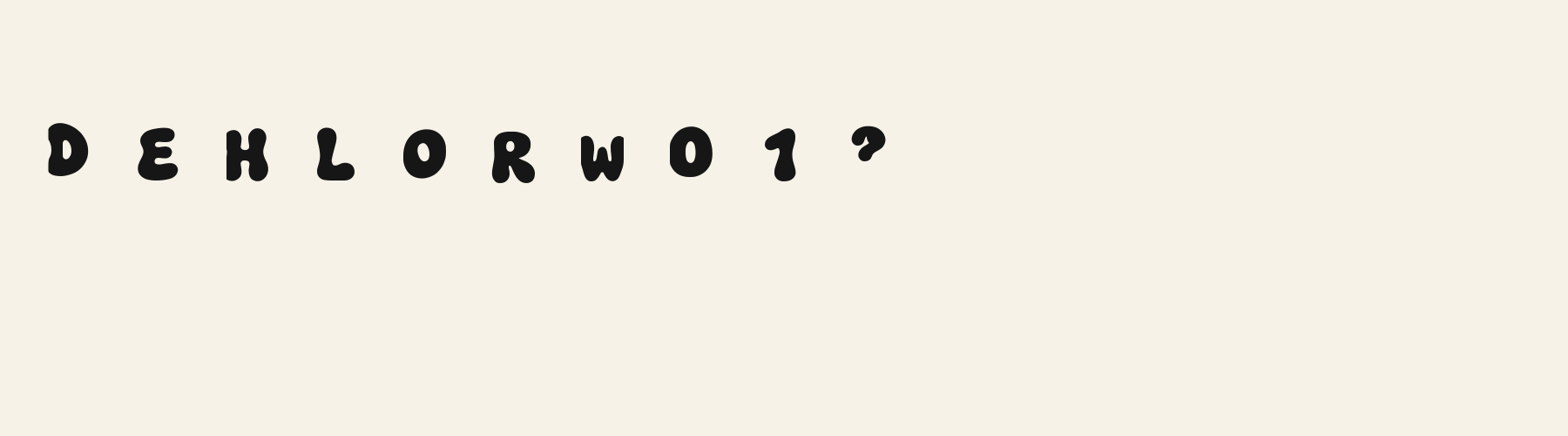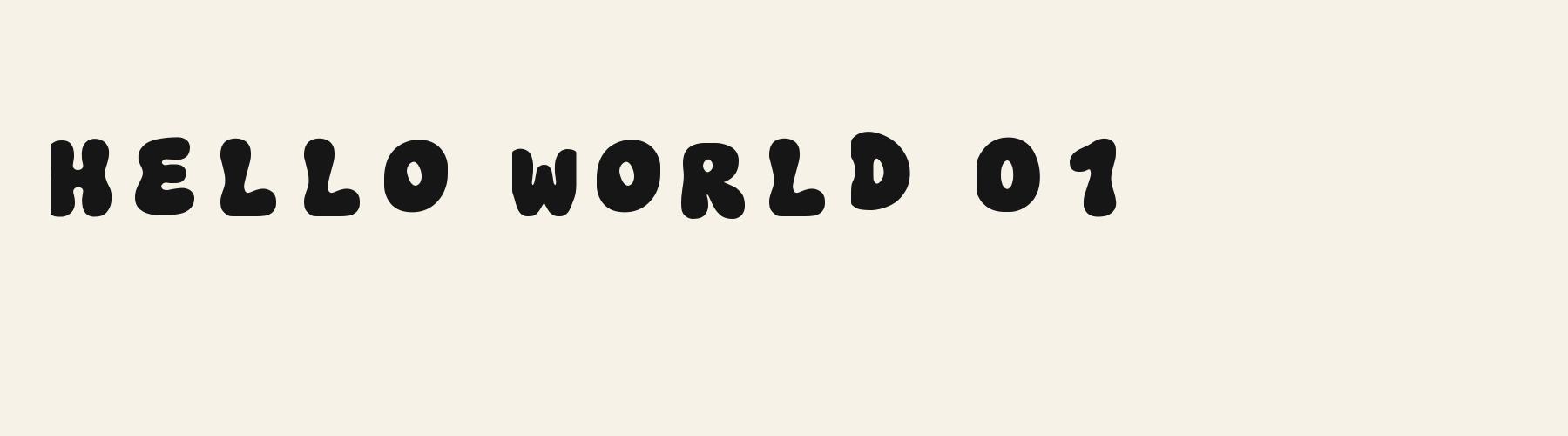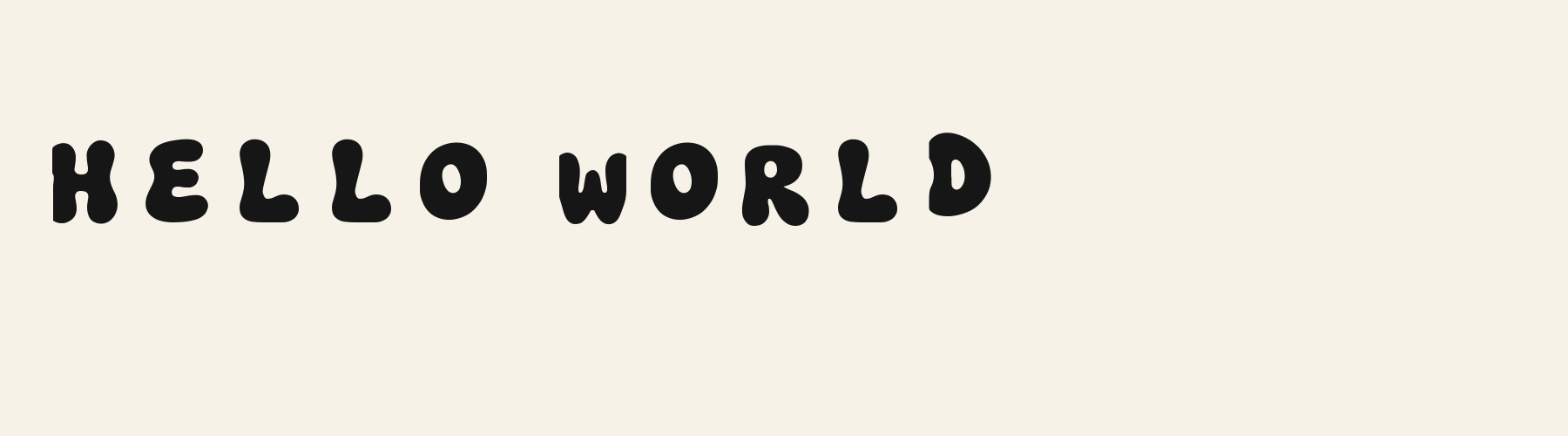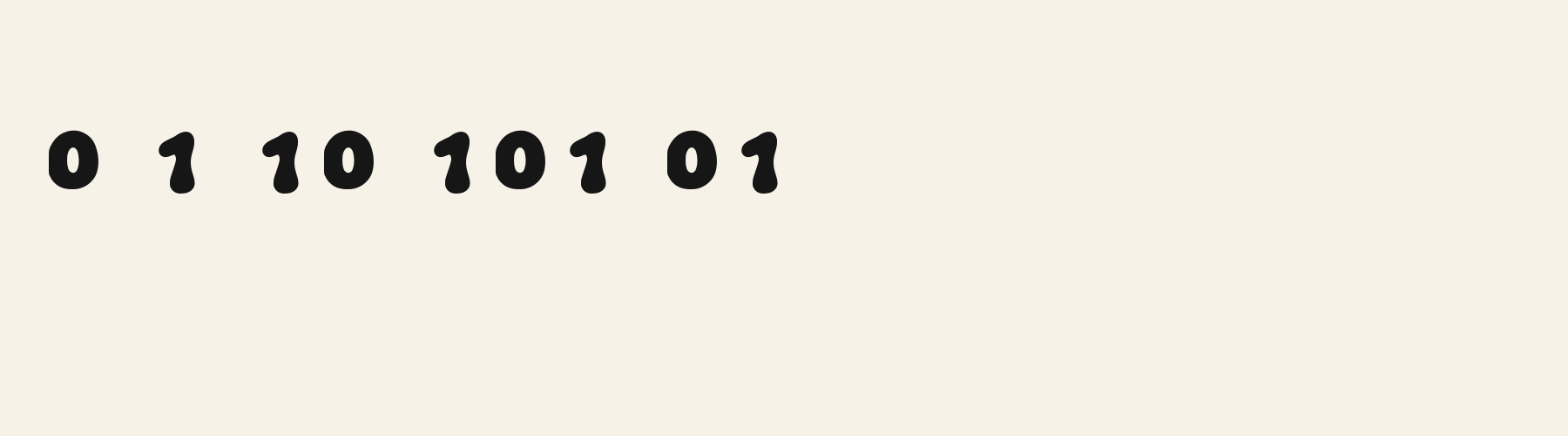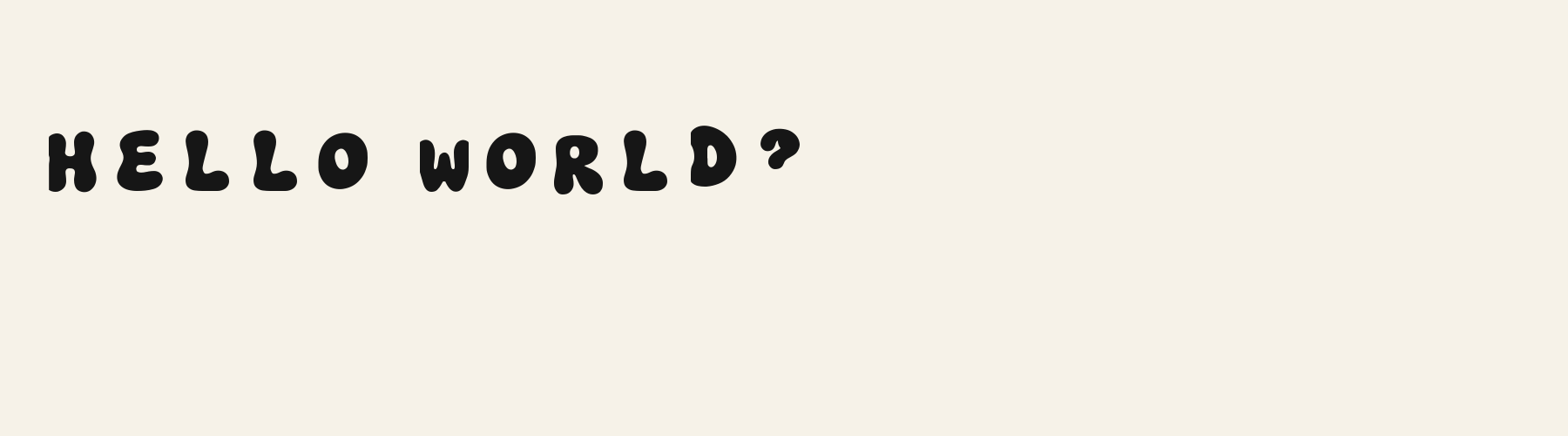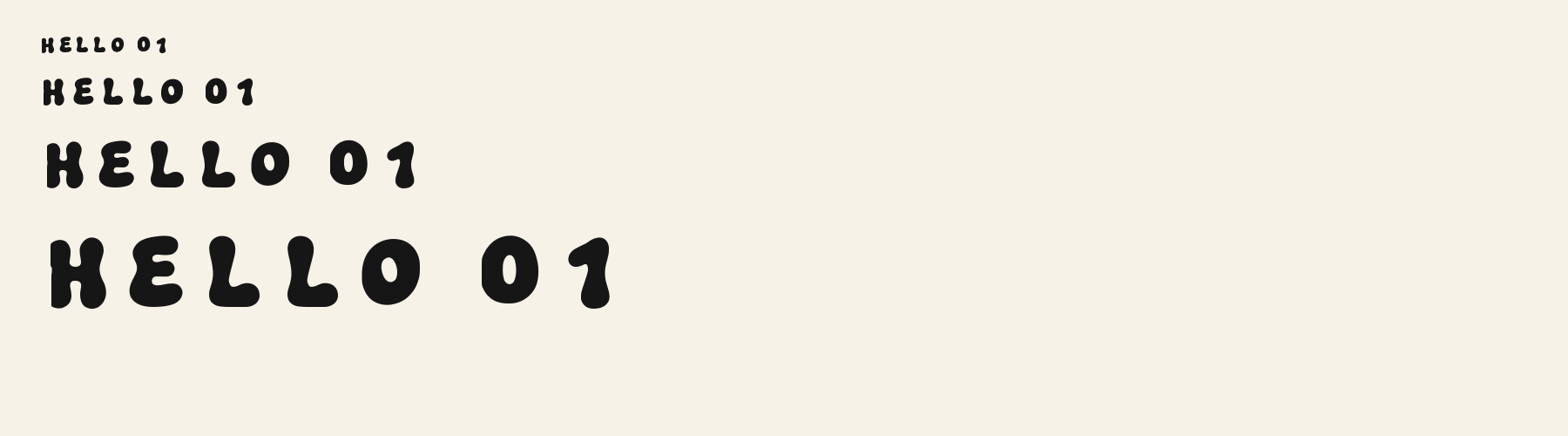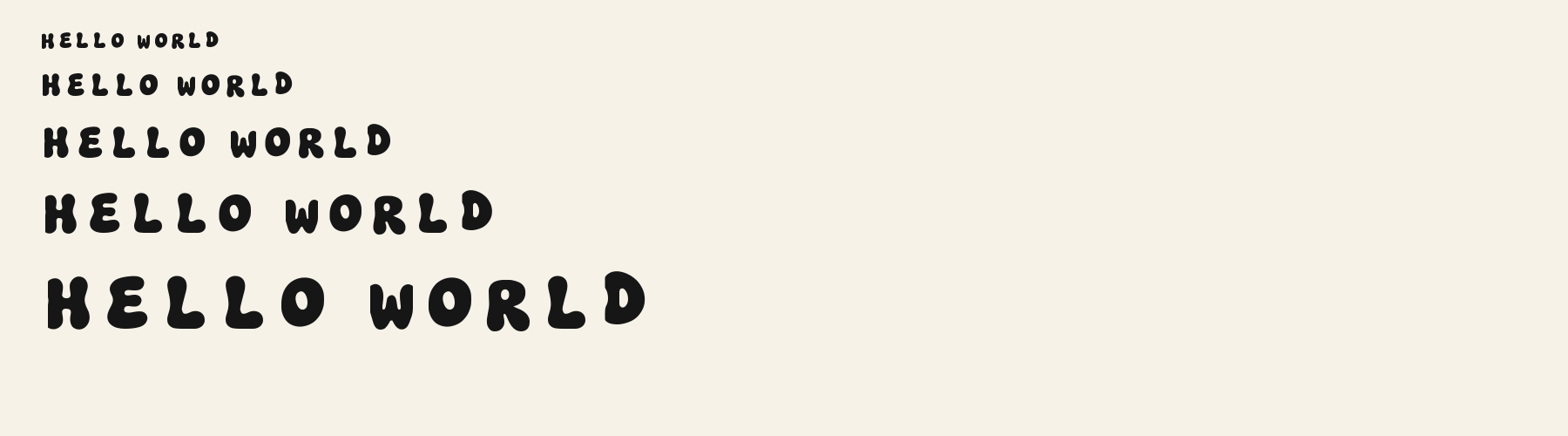
Bubble Candy Inflate Pinched Join Puffed Font
Bubble Candy Inflate packs heavy, upright letters into soft silhouettes with swollen sides and gently pinched connections.
Pinched Join Puffed Letterforms
Bubble Candy Inflate packs heavy, upright letters into soft silhouettes with swollen sides and gently pinched connections. The E has broad, rounded arms with open recesses between them, while the R holds a small oval counter above a thick leg that kicks outward. The W folds into rounded lower lobes, with narrow recesses descending between its upper strokes. Solid strokes carry the shape without outlines or highlights, and the enclosed counters remain distinct against the dense black forms. Slight asymmetry keeps the lettering playful, giving short words the feel of soft, puffed pieces pressed into place.
Check the small counters in R and D, the narrow recesses in W, and gaps around repeated L shapes in your wording. Test punctuation alongside letters. Accented Latin and other scripts need a separately verified companion; the supplied specimens show unaccented Latin capitals.
Let this face carry the short heading, then try a restrained sans serif for descriptions and supporting labels. Its swollen bowls and pinched joins already supply strong texture, so a companion with open counters and steadier contours can keep secondary information distinct.
Bubble Candy Inflate: letterforms and layout
Compare the original spacing with a wider setting. Watch the gaps around the narrow L shapes and broad O bowls: extra space can separate the swollen silhouettes, but may also loosen the compact rhythm of each word.
Bubble Candy Inflate has a fuller, rounder D and smoother upper and lower arms on E. Its R carries a broad, rounded bowl. Choose it when the wording calls for a plump silhouette with relatively calm outer contours.
Bubble Gel Wobble gives D a more sloping, wedge-like outline, while E has more visible waves along its arms. The upper contour of R also slopes more noticeably, lending the same phrase a more uneven, rippling rhythm.
PEACH POP
Product label. Swollen bowls and rounded terminals give a short product name a soft, playful presence on a simple label. HELLO YOU
Sticker. Heavy silhouettes and pinched joins make a compact greeting feel like a cluster of soft shapes on a sticker. GOOD MOOD
Social post. Broad rounded bowls give a short social headline a buoyant rhythm, with solid strokes supporting a simple color treatment.
The scenes are illustrations drawn on this page with Bubble Candy Inflate itself, not client work.
About Bubble Candy Inflate
With an x-height of 77.7% of the cap height, its lowercase stands above the 74.4% median for display fonts, taller than 75 of the 116 other display fonts. Ascenders on b, d, h, k and l rise 23.5% above the capitals, and descenders on g, j, p, q and y drop 8.7% of the cap height below the baseline, shallower than 113 of the 116 other display fonts. It sets narrow: an average lowercase letter, spacing included, is 82.4% as wide as the capitals are tall (an average capital, 86.9%), 5.4% less than the median for display fonts, so more words fit on a line. The o is close to a circle, 1.01 times as wide as it is tall, and T is the widest capital, at 1.10 times the width of H. The O stops 9.2% of the cap height short of H and dips 1.1% below the baseline.
The letters stand upright, leaning less than 2.5° either way. Vertical stems measure 25.1% of the cap height, heavier than 35 of the 58 other display fonts. Ink covers 55.2% of each lowercase letter's box (its advance width by the cap height), darker than 103 of the 116 other display fonts. Strokes keep nearly one thickness in every direction: the sides and the tops of o and O differ by 9%. Bubble Candy Inflate comes in Regular and Bold; Bold puts down 8% more ink than Regular.
Its 95 characters include 52 Latin letters, plus 43 figures, punctuation marks and symbols; there are no accented Latin letters beyond A to Z. The word space measures 51.2% of the cap height, and the blank space either side of a lowercase letter takes up 11.8% of its width. The font carries no kerning, so spacing comes from each letter’s own side bearings. The figures have different widths, so columns of numbers set in Bubble Candy Inflate will not line up exactly.
- What fonts pair well with Bubble Candy Inflate?
- Plaza Sans (sans serif), Geo Triangle Aperture (sans serif) and Headline Slab (serif) are drawn on a different letter structure, so Bubble Candy Inflate can carry the headings while one of them sets the text. Each has its own page with a type tester for trying the pair.
- Which fonts are similar to Bubble Candy Inflate?
- In the same display style: Groove Outline (lighter strokes, outline effect); Orbit Outline (lighter strokes, 24% wider); Bubble Balloon Party (11% narrower, lighter strokes).